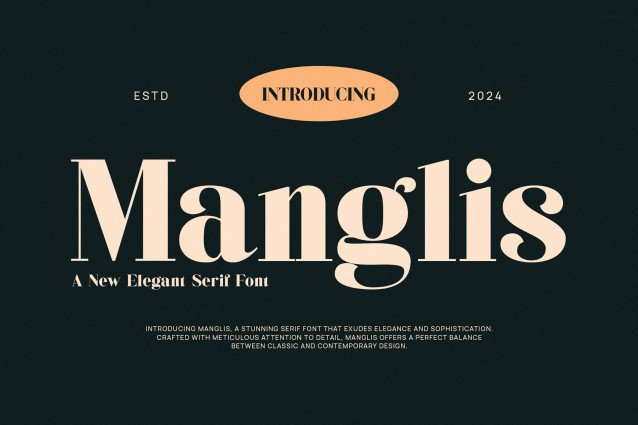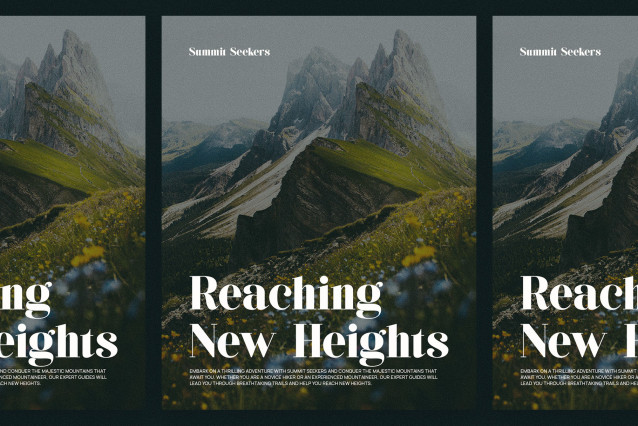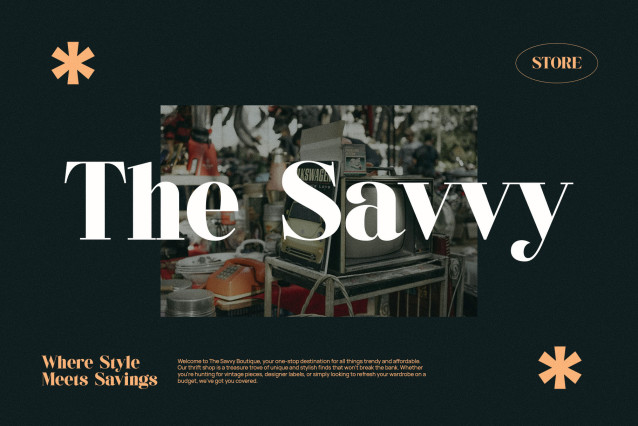
Manglis Font
Manglis Font, modern serif font with elegant style this is perfect for branding, logos, invitation, magazines, product packaging and more.